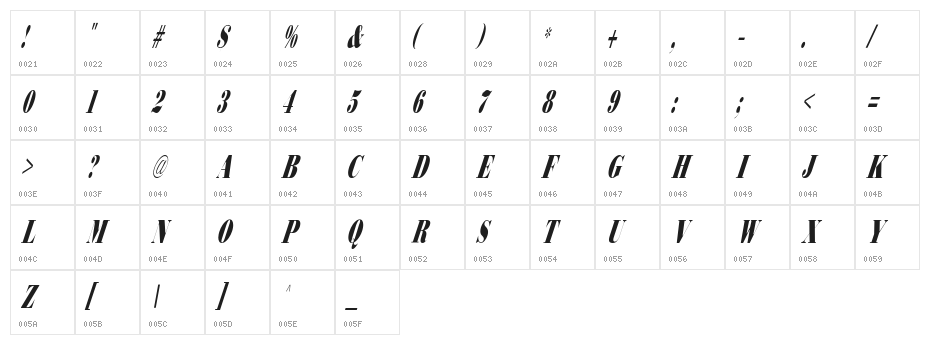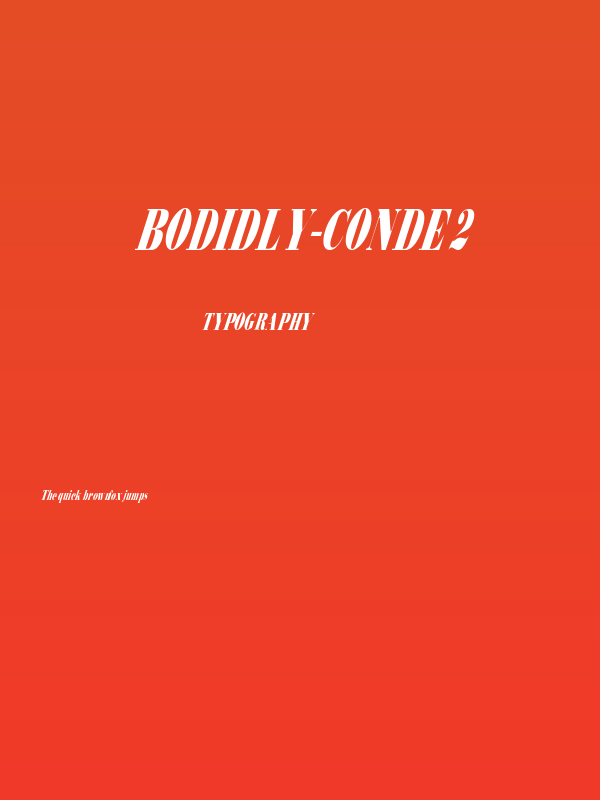
Bodidly-Conde 2 Font
Bodidly-Conde 2 Description
This font features a bold and elegant design with a strong emphasis on vertical strokes, giving it a dramatic and sophisticated appearance. The letters are condensed, with a high contrast between thick and thin strokes, which adds to its striking visual impact. The italicized style further enhances its dynamic and flowing character, making it suitable for attention-grabbing headlines and titles. The uppercase and lowercase letters maintain a consistent style, while the numerals and special characters complement the overall aesthetic. This font's unique design makes it ideal for projects that require a touch of elegance and boldness.
Overall StyleElegant
Proposed ProjectsIdeal for luxury branding, fashion magazines, elegant invitations, and dramatic poster designs.